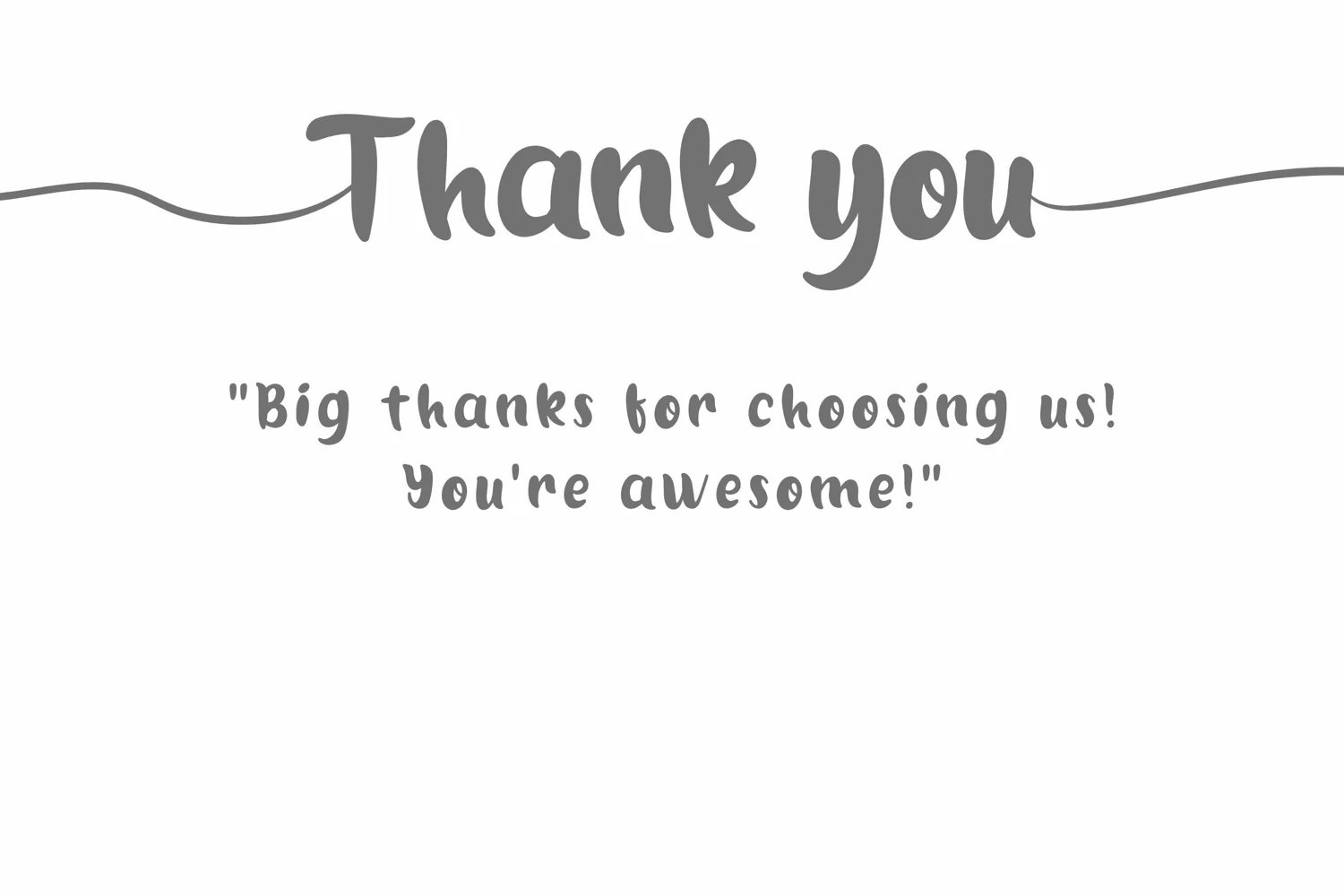
Introducing Quill Hope, a font with a unique handwriting brush style. This extraordinary font elevates and brings a charming appeal to your craft projects and branding designs. Its elegance also ensures it stands out when used in titles, offering a distinct touch that's both commanding and engaging. Quill Hope, where whimsy meets sophistication. Experience the transformative magic it can add to your typography!